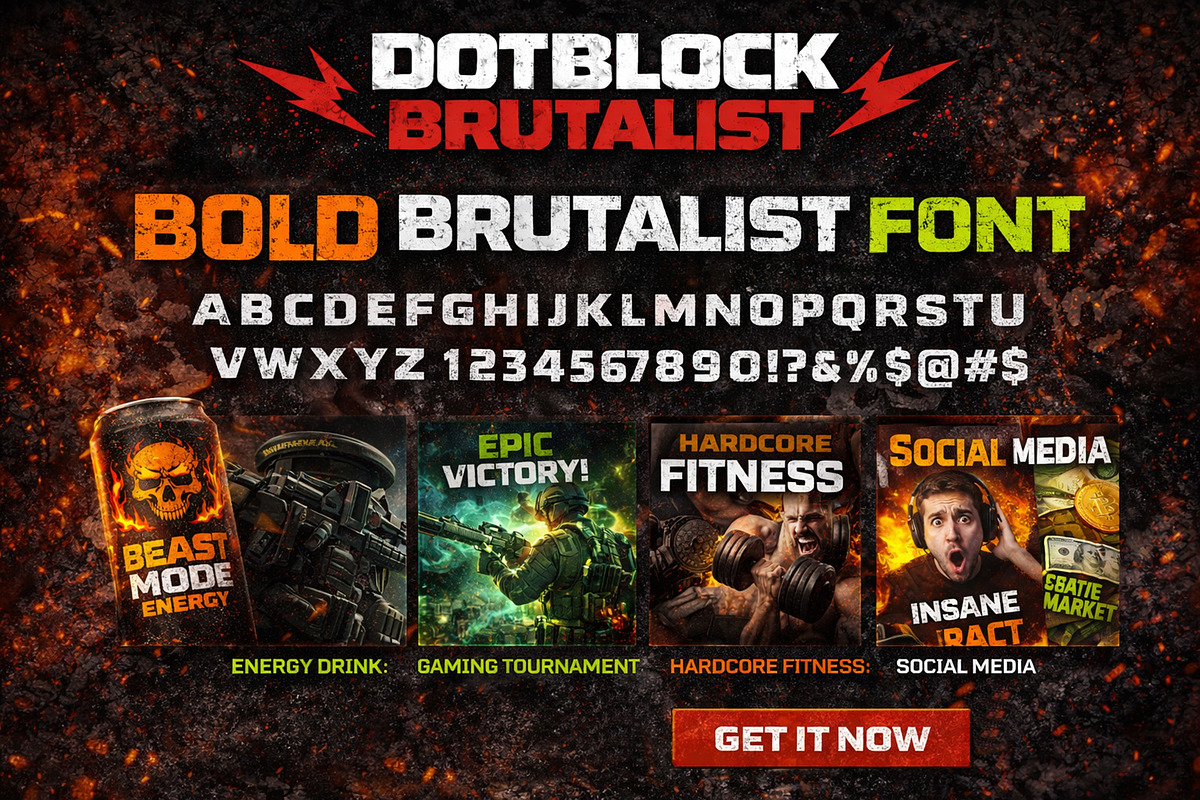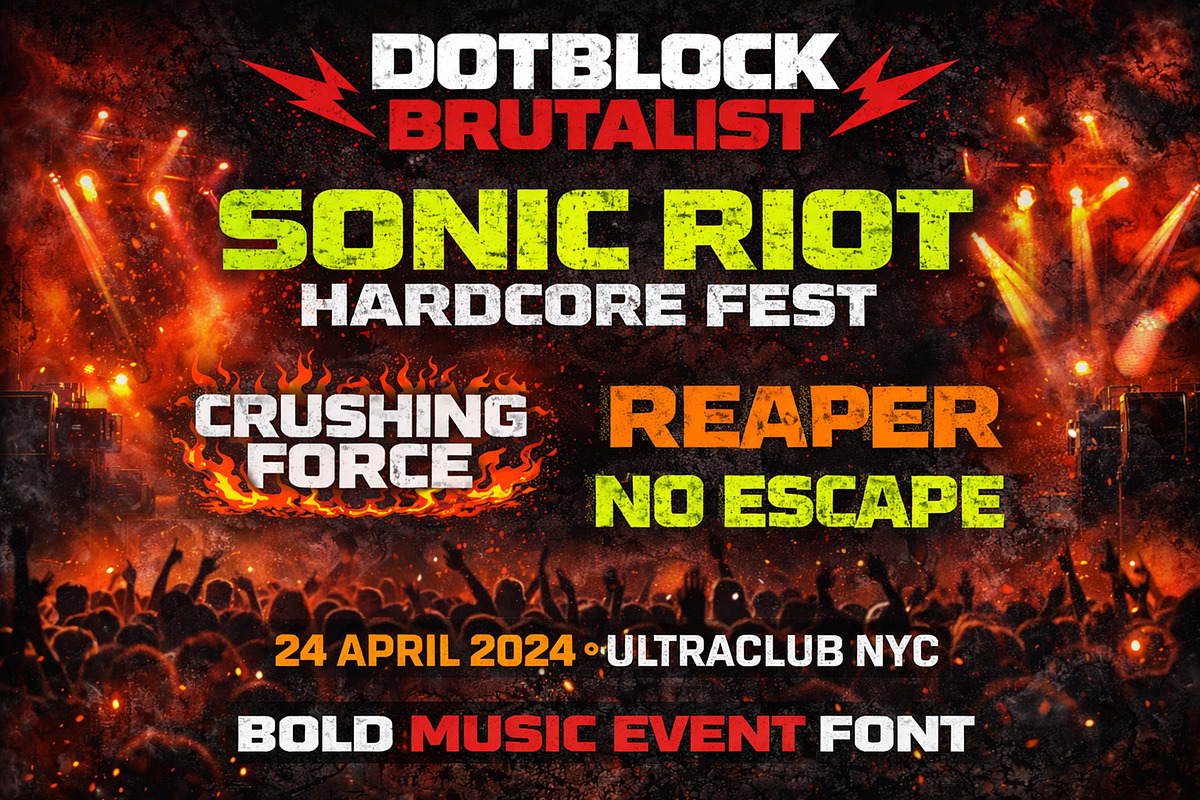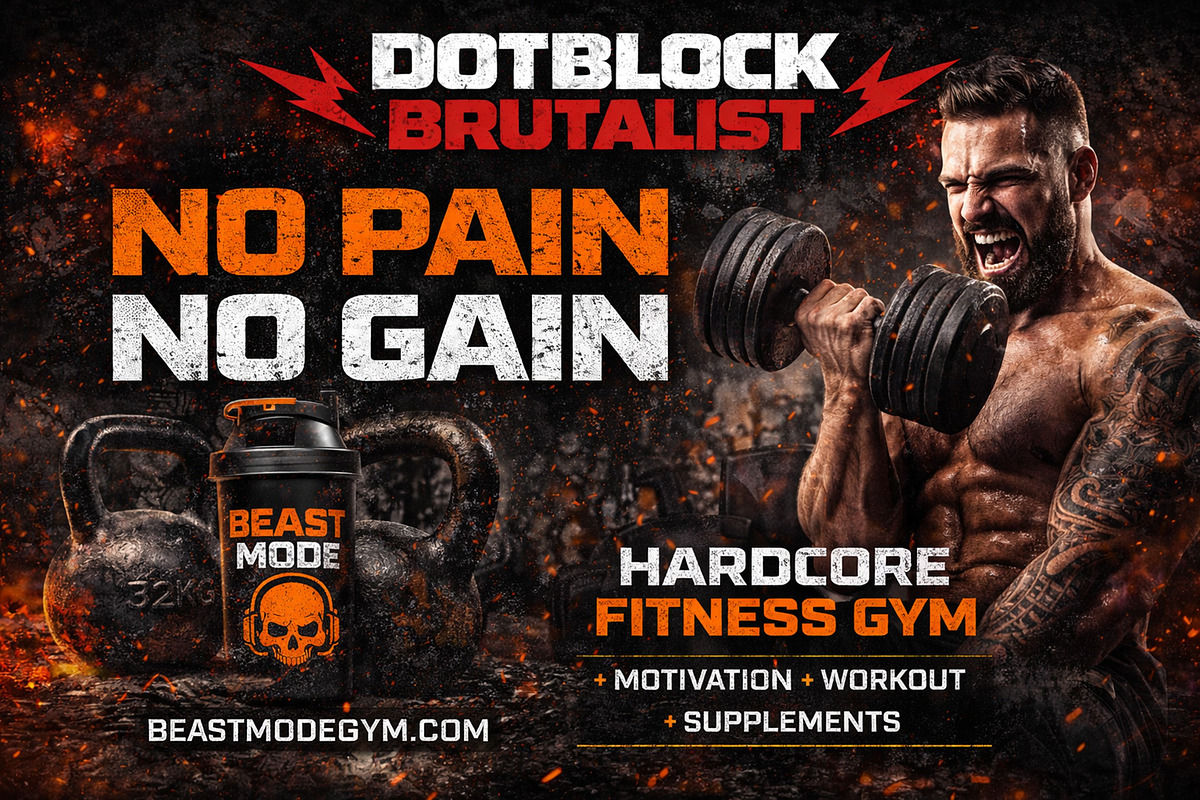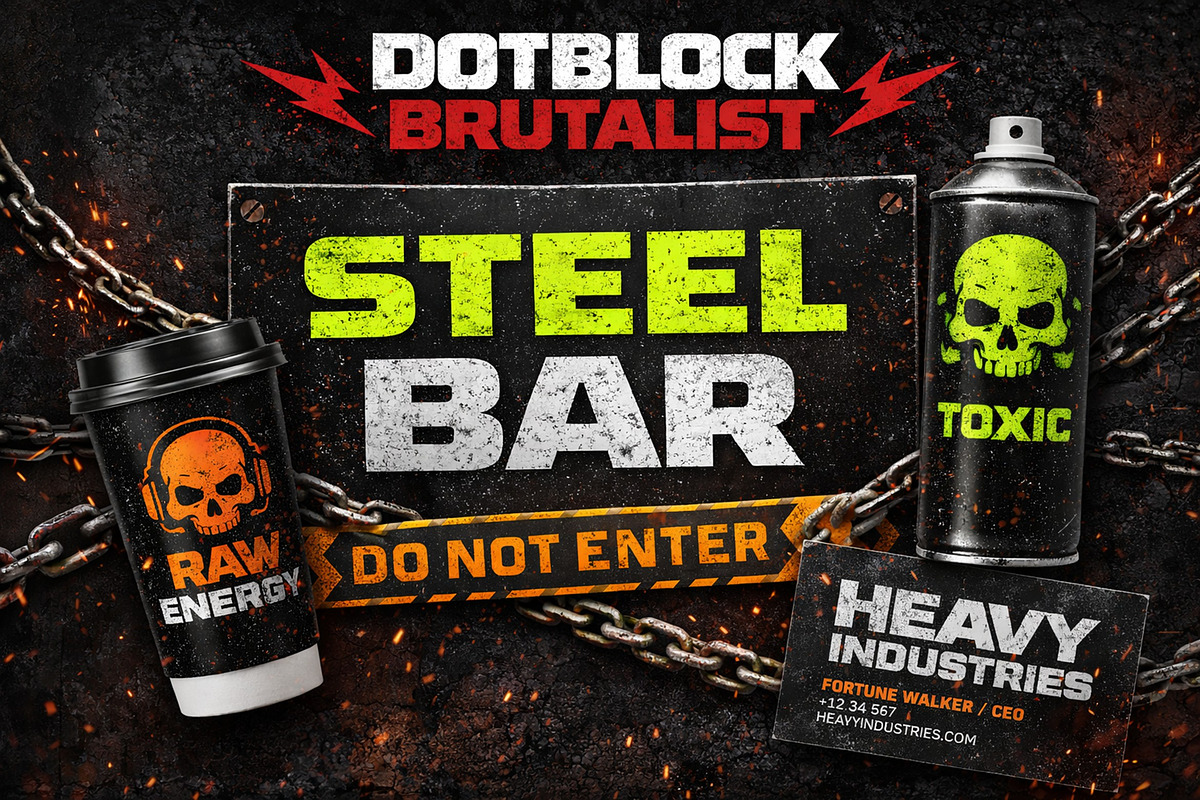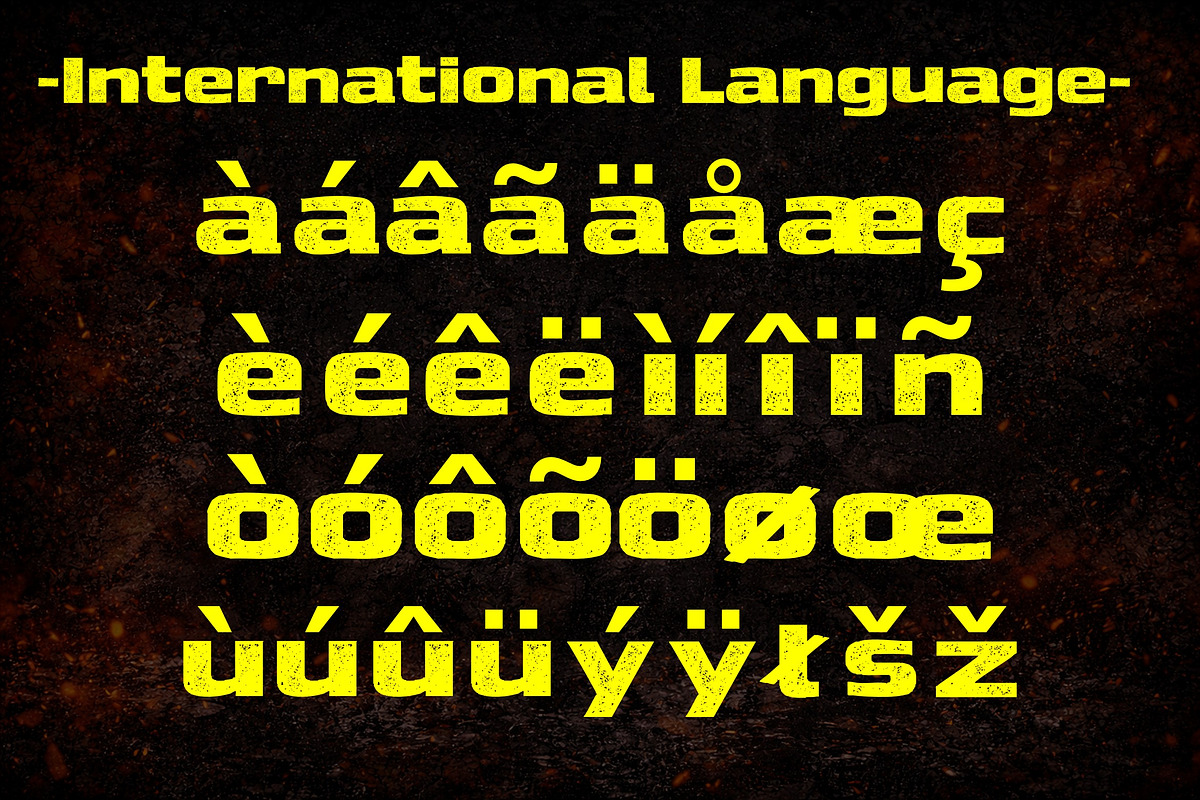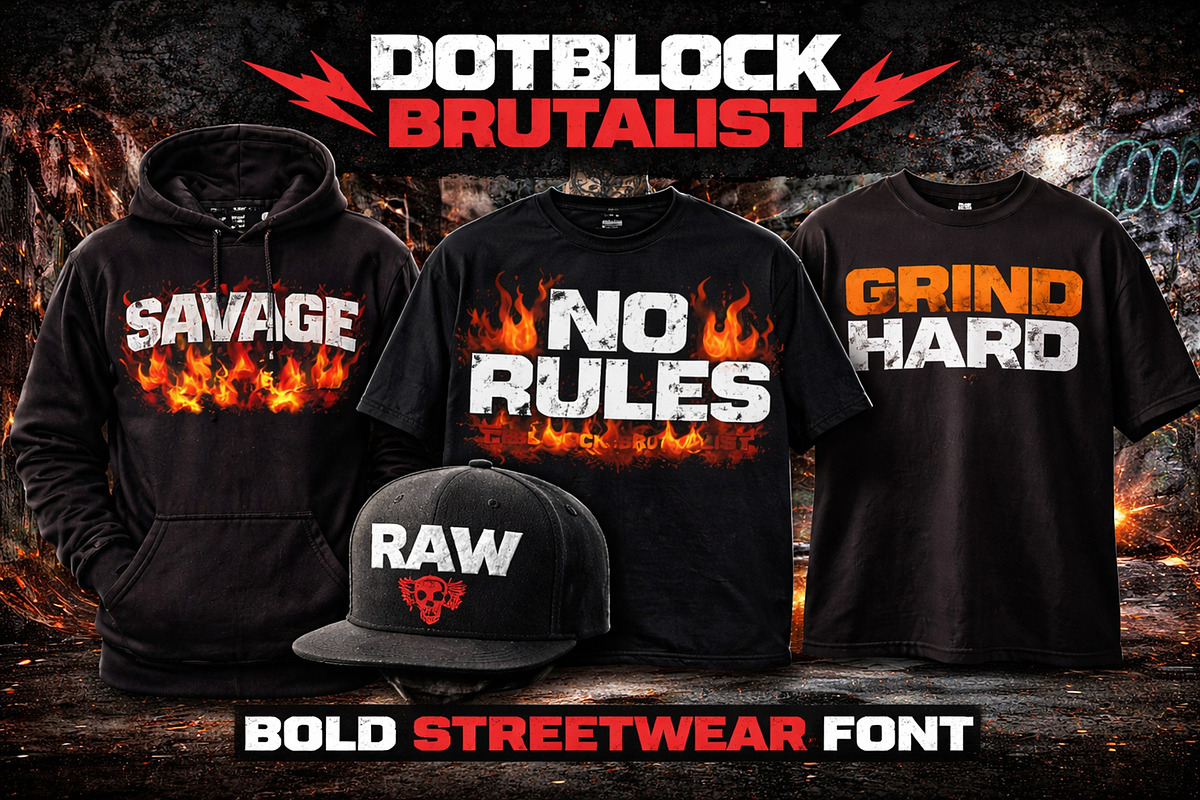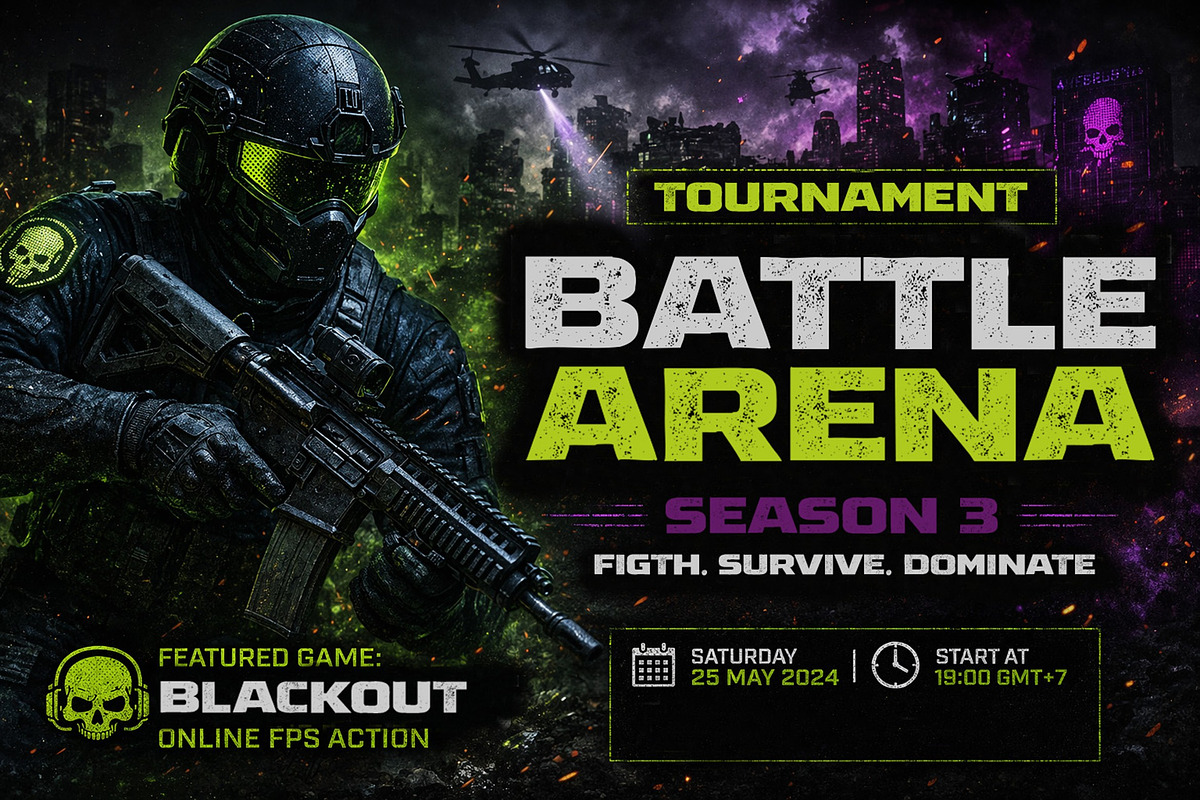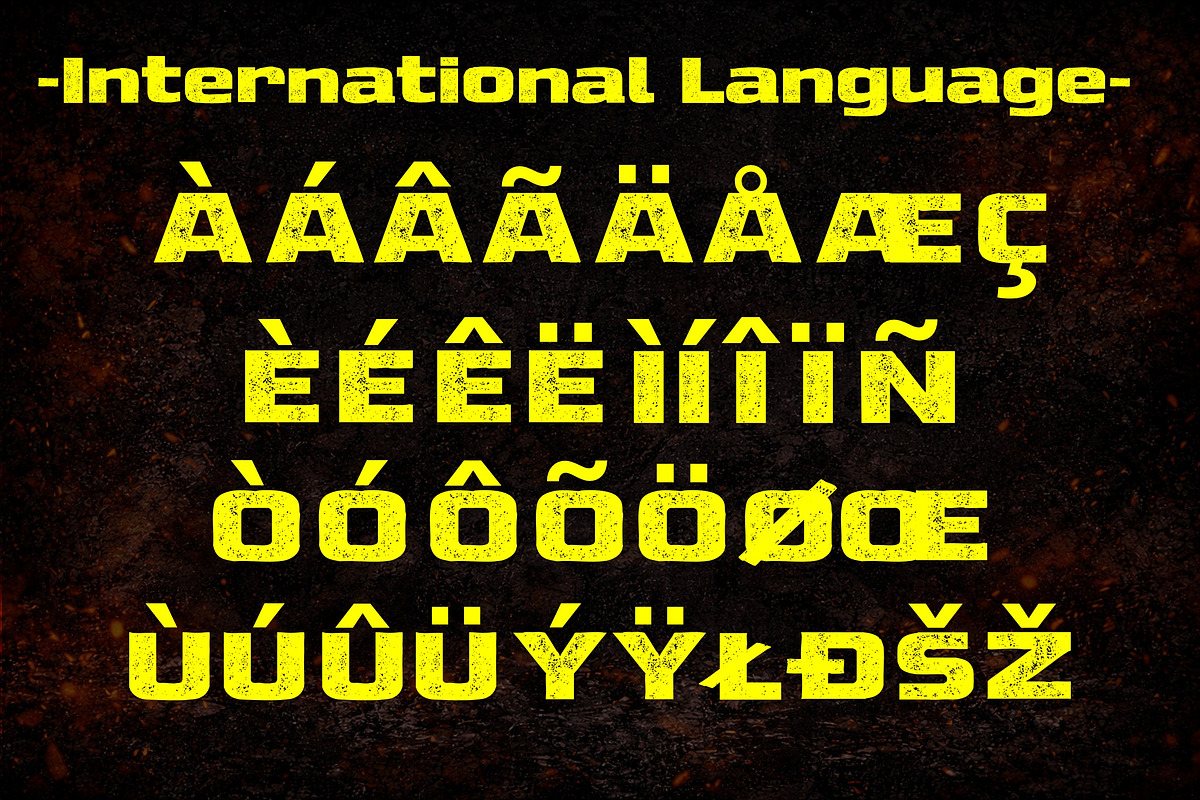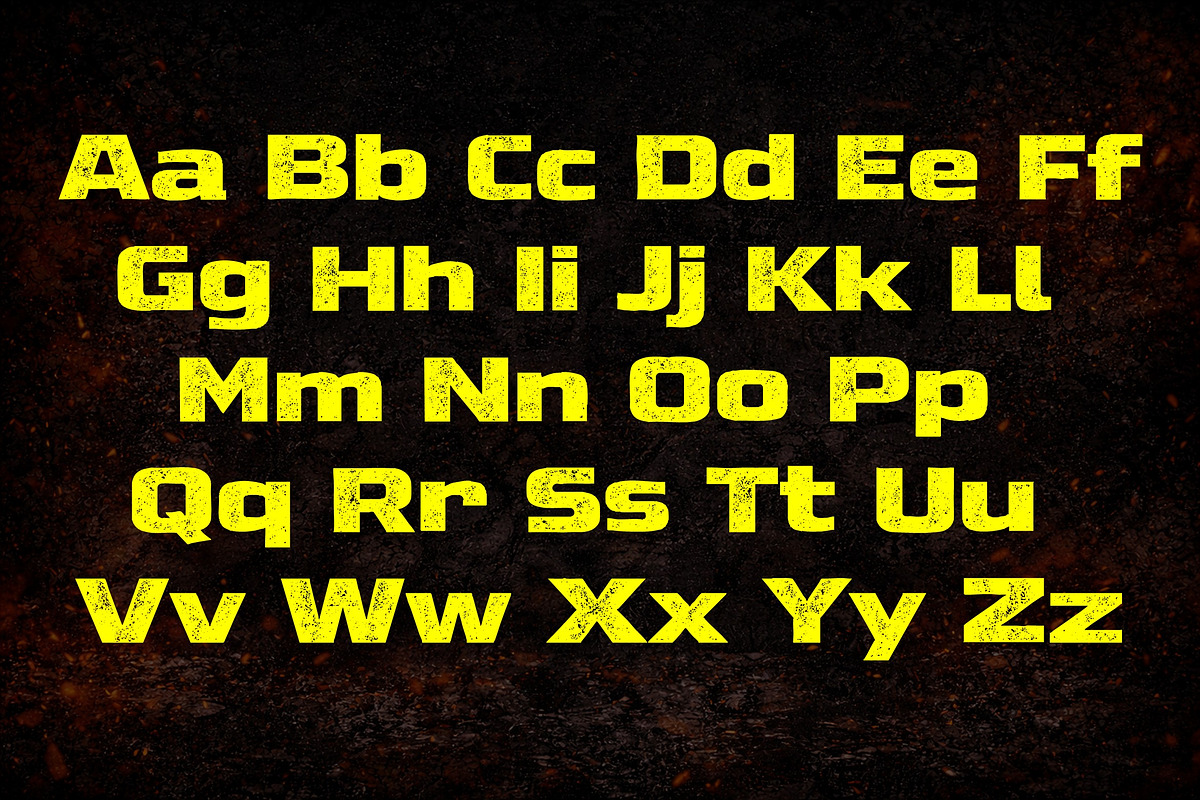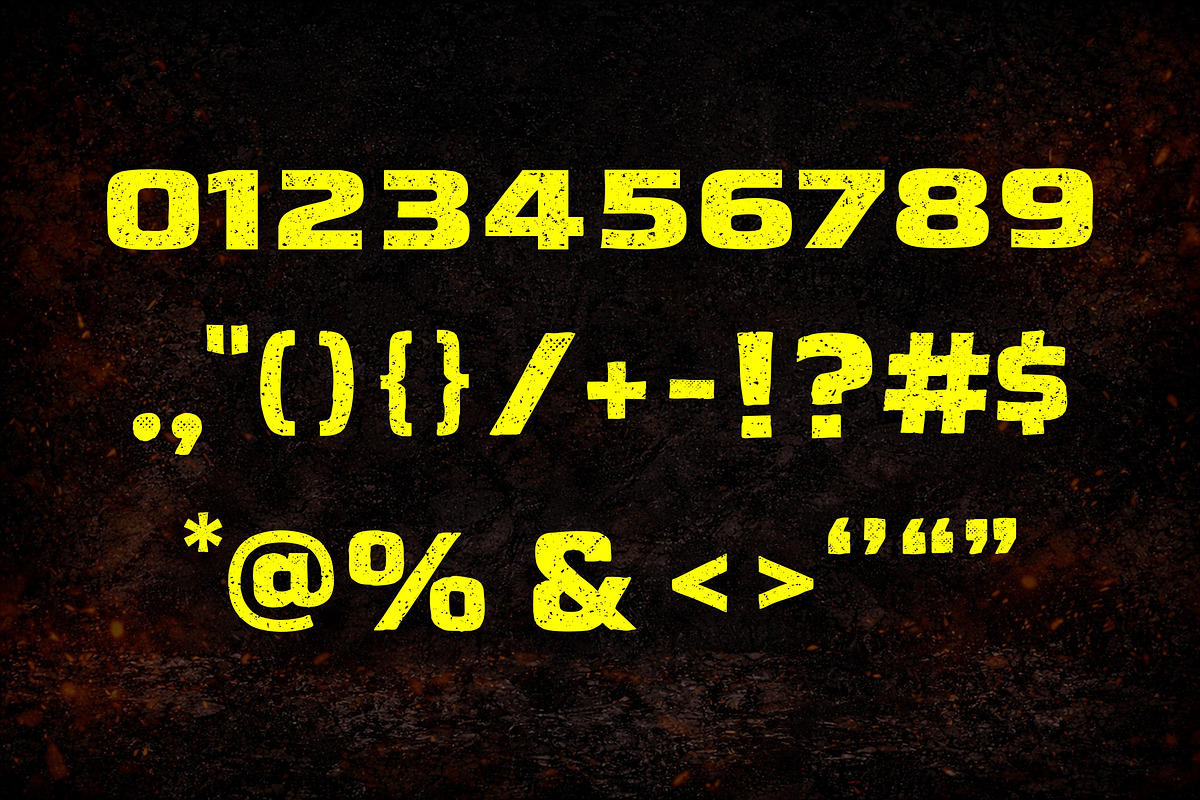
DotBlock Brutalist
DotBlock Brutalist is a bold and experimental display font inspired by brutalist design and raw industrial aesthetics. Featuring heavy block shapes combined with subtle dot-texture detailing, this font delivers a strong, edgy, and modern visual impact.
Perfect for branding, music posters, event promotions, packaging, and bold graphic design projects that demand attention.
- 223 Glyps included Uppercase, Lowercase, Numeral, Punctuation, Multilingual international Language.